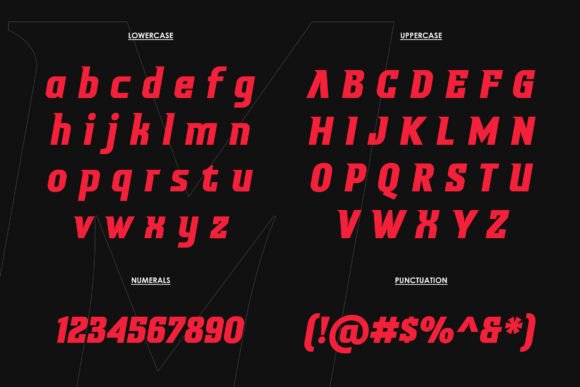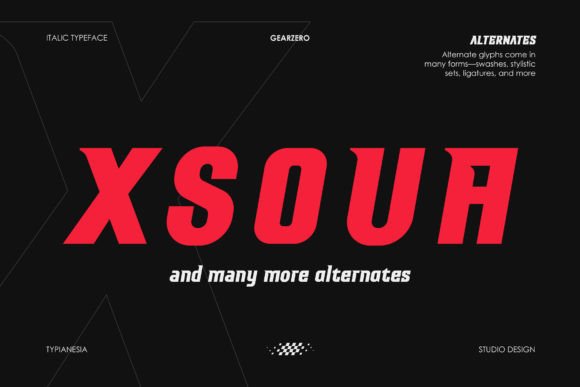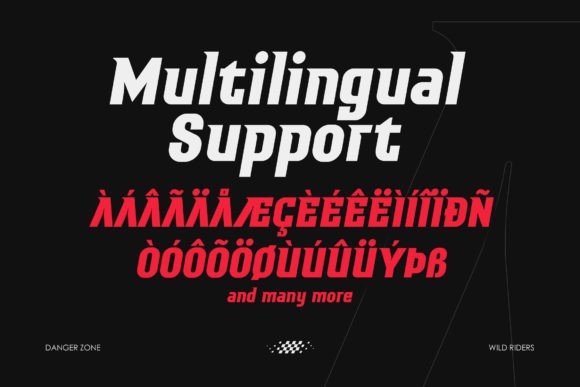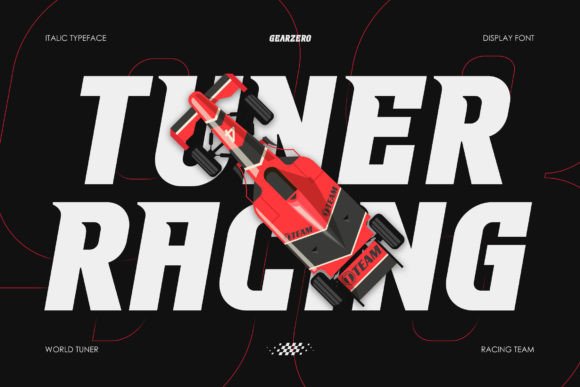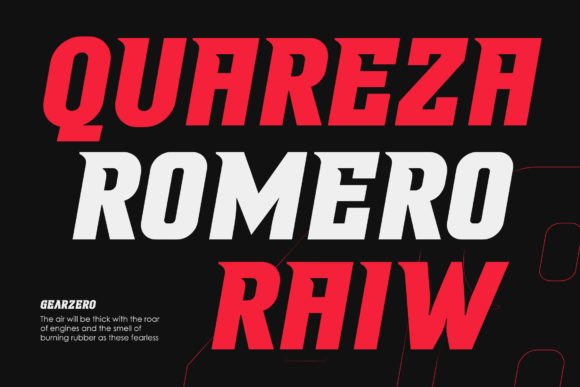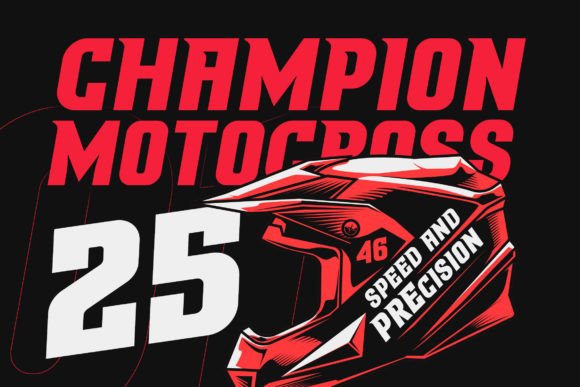
Introduction to Gearzero Font
Have you ever been stuck in front of a blank screen, desperately searching for the perfect font to bring your high-octane design project to life? You’re not alone. Designers know the thrill of creating something that truly embodies the energy and excitement of their brand. That’s where the Gearzero Font comes in – a game-changing design resource that’s about to revolutionize the way you approach your next creative project.
With its bold, angular letterforms and dynamic flair, the Gearzero Font is the ultimate choice for designers who need to convey speed, power, and motion. Whether you’re working on a logo design, branding for sports, or a promotional campaign for a high-performance product, this font is sure to deliver. Plus, with its transparent background and high-quality design, it’s the perfect addition to any project that requires a touch of sophistication and style.
Key Features of Gearzero Font
- Features a unique, modern design that can add a touch of sophistication to any creative project.
- Includes a range of font sizes and resolutions, from 72 dpi to 300 dpi, catering to different design requirements.
- Designed to be highly versatile, making it suitable for various design applications, from logos to typography.
Honest Review: Gearzero Font
I recently stumbled upon the Gearzero Font, and I have to say, it’s a fantastic design resource for any creative project. This high-quality font is perfect for anyone looking to add a modern touch to their work.
- ✨ High-quality design: The Gearzero Font boasts crisp, clean lines and a professional feel that’s perfect for any project.
- ✨ Transparent background: This font’s transparent background makes it easy to overlay on top of images or other design elements.
- ⚠️ Limited font styles: While the Gearzero Font is a great choice for many projects, it’s limited to a single style, which might not be suitable for more complex designs.
- ⚠️ No web font option: Unfortunately, the Gearzero Font isn’t available as a web font, which can make it more difficult to use in web-based projects.
Overall, I’m really impressed with the Gearzero Font. Its clean design and transparent background make it a versatile choice for any creative project. While it has a few limitations, I think it’s definitely worth checking out.
The Gearzero Font is ideal for a wide range of creative projects, including logos, social media graphics, presentations, reports, and documents. Its high quality and transparent background make it a versatile design resource that can be used in various design applications.
To get the most out of the Gearzero Font, experiment with different font sizes, colors, and combinations. Use it in conjunction with other design elements, such as images and graphics, to create visually appealing designs. With practice and patience, you can unlock the full potential of this high-quality font.
Q: Does the Gearzero Font have a transparent background?
No, the Gearzero Font does not have a transparent background. However, you can use a design tool like Adobe Illustrator or Photoshop to create a transparent background for your design project.
Q: Is the Gearzero Font suitable for high-quality print projects?
Yes, the Gearzero Font is designed to be high-quality and suitable for print projects. It has been optimized for use at various font sizes and resolutions, making it perfect for business cards, brochures, and other marketing materials.